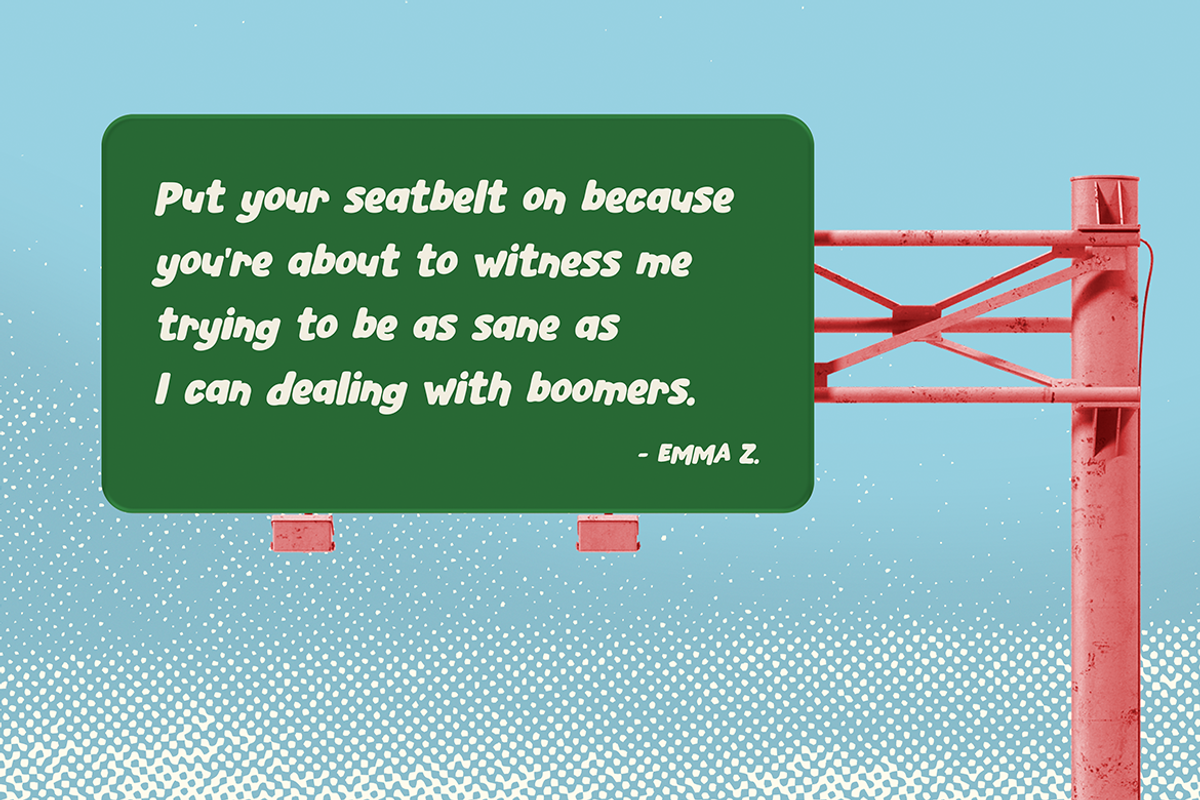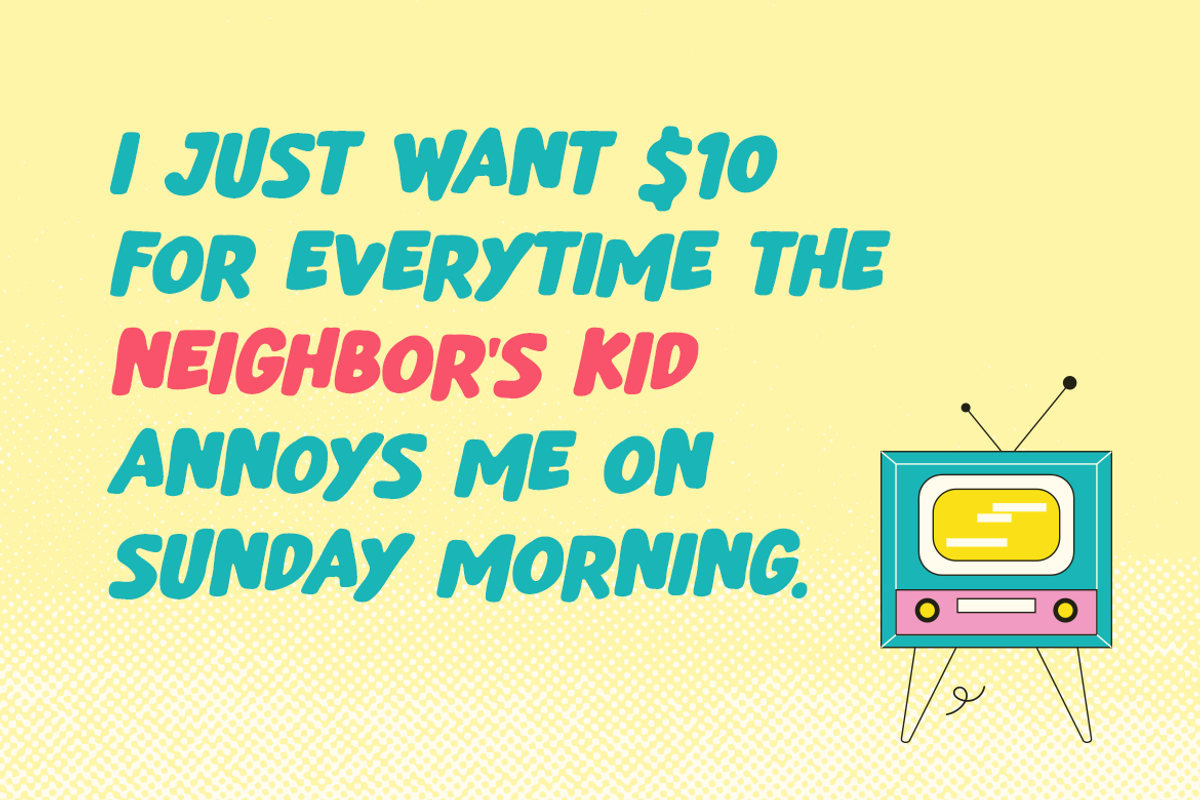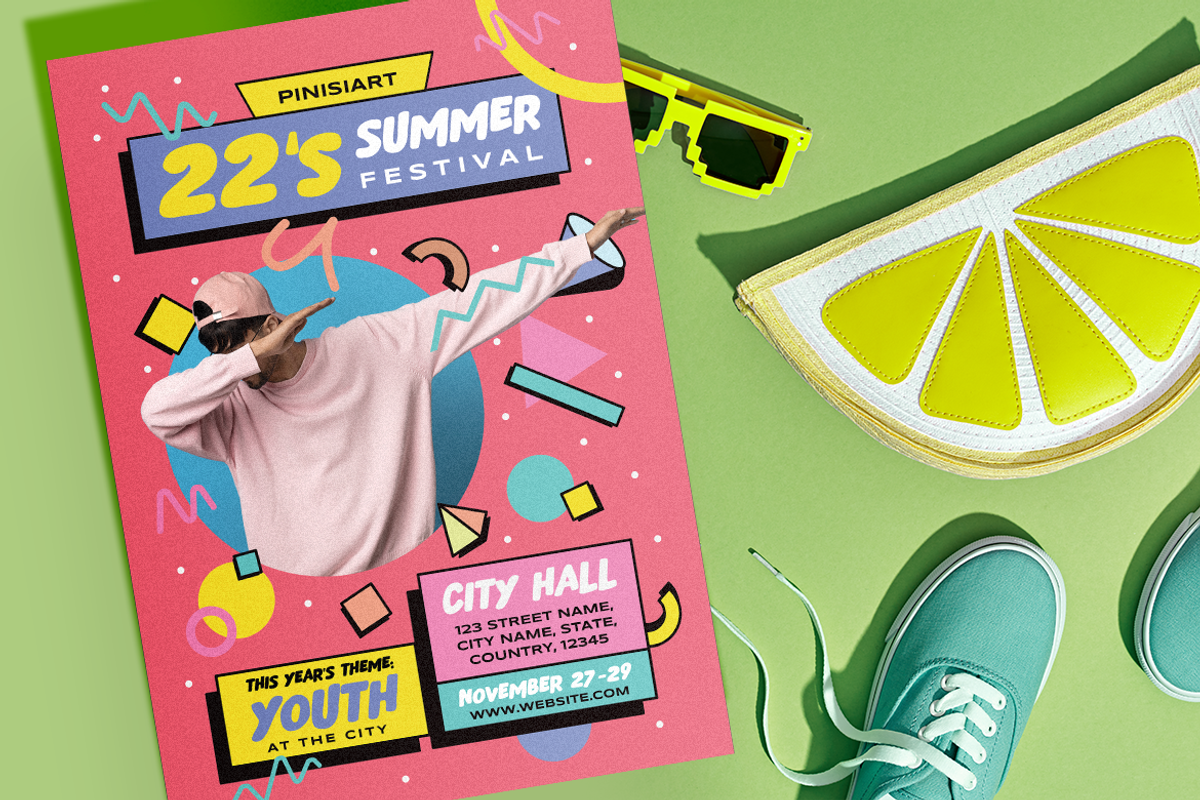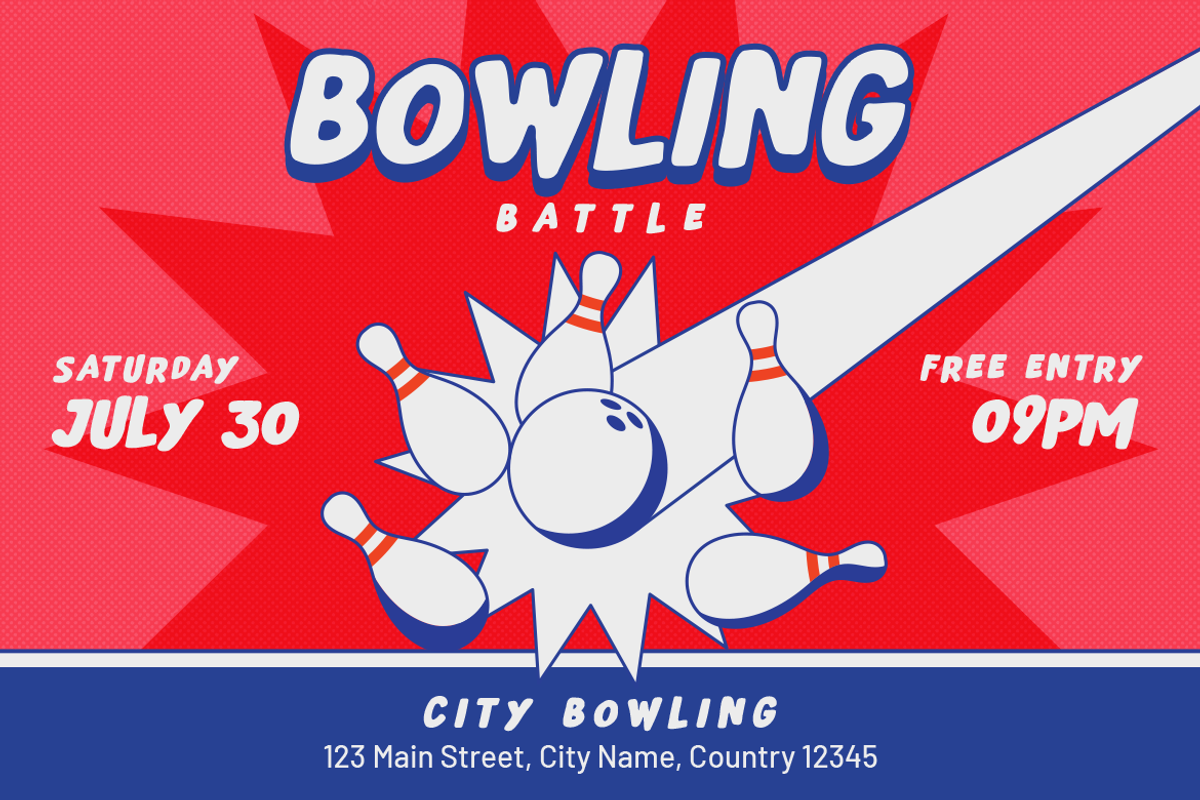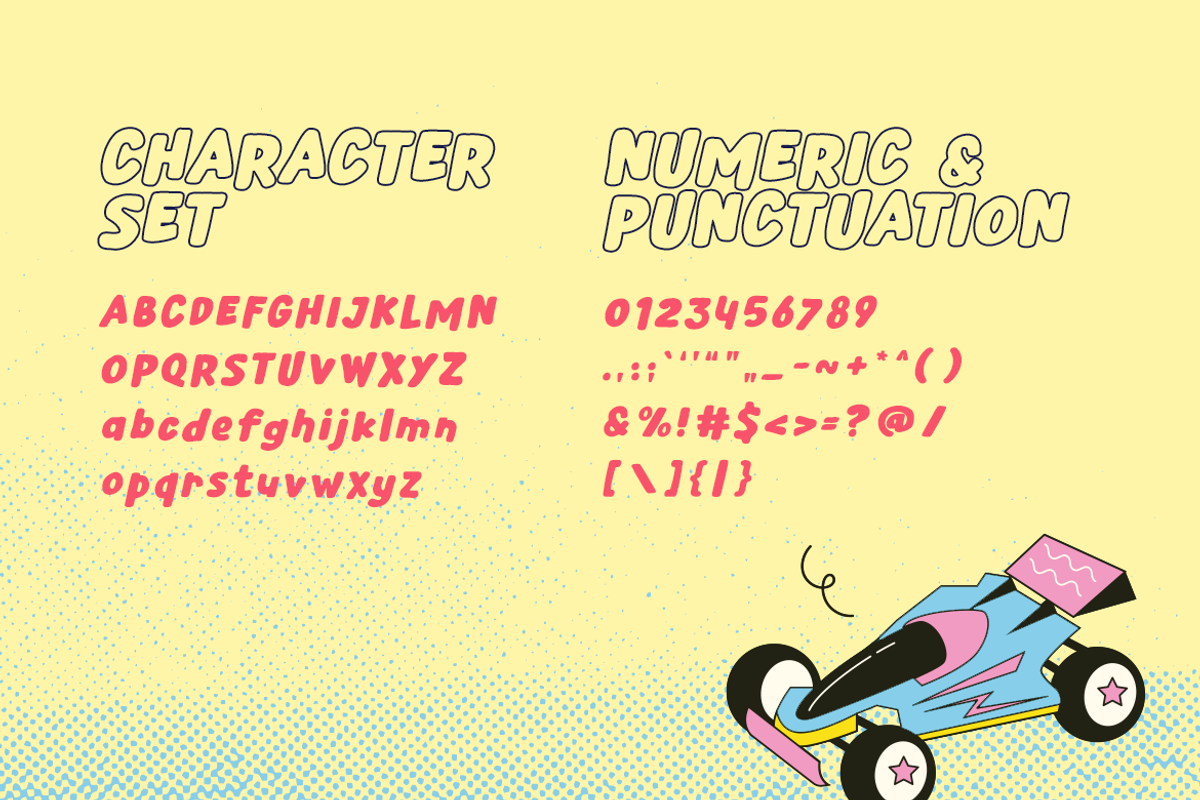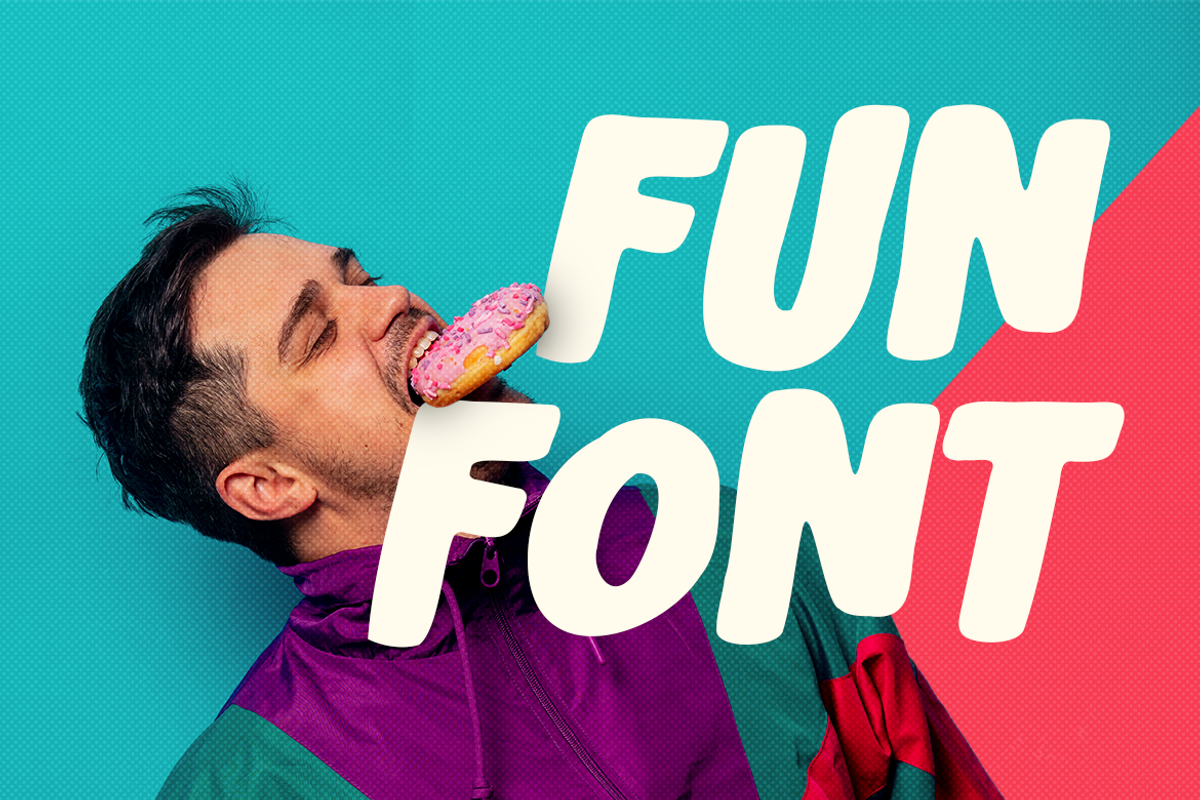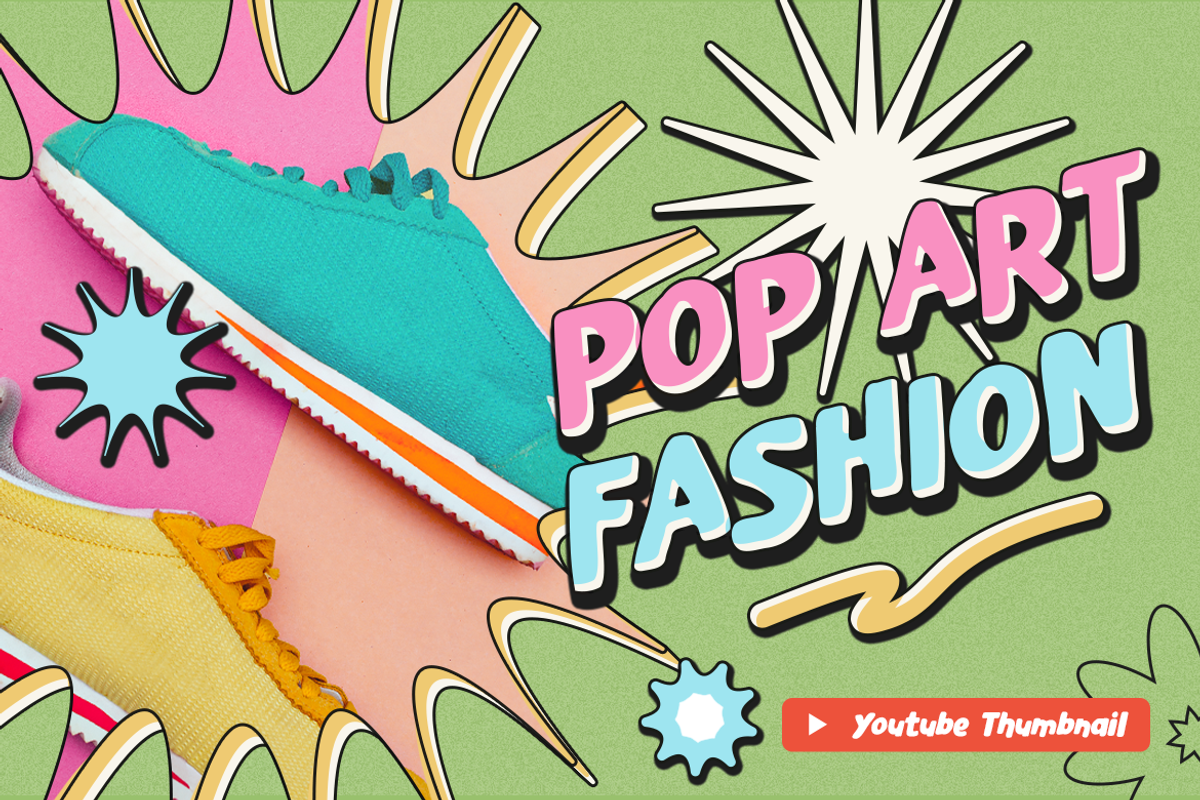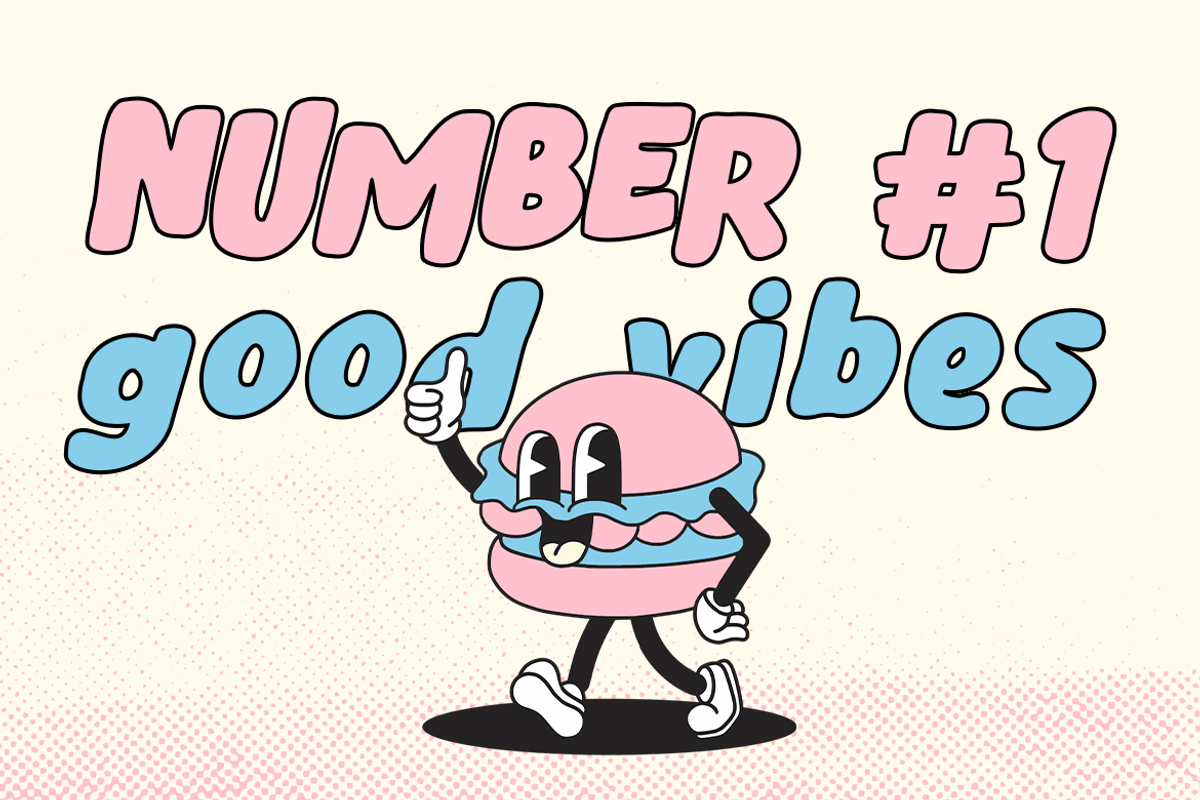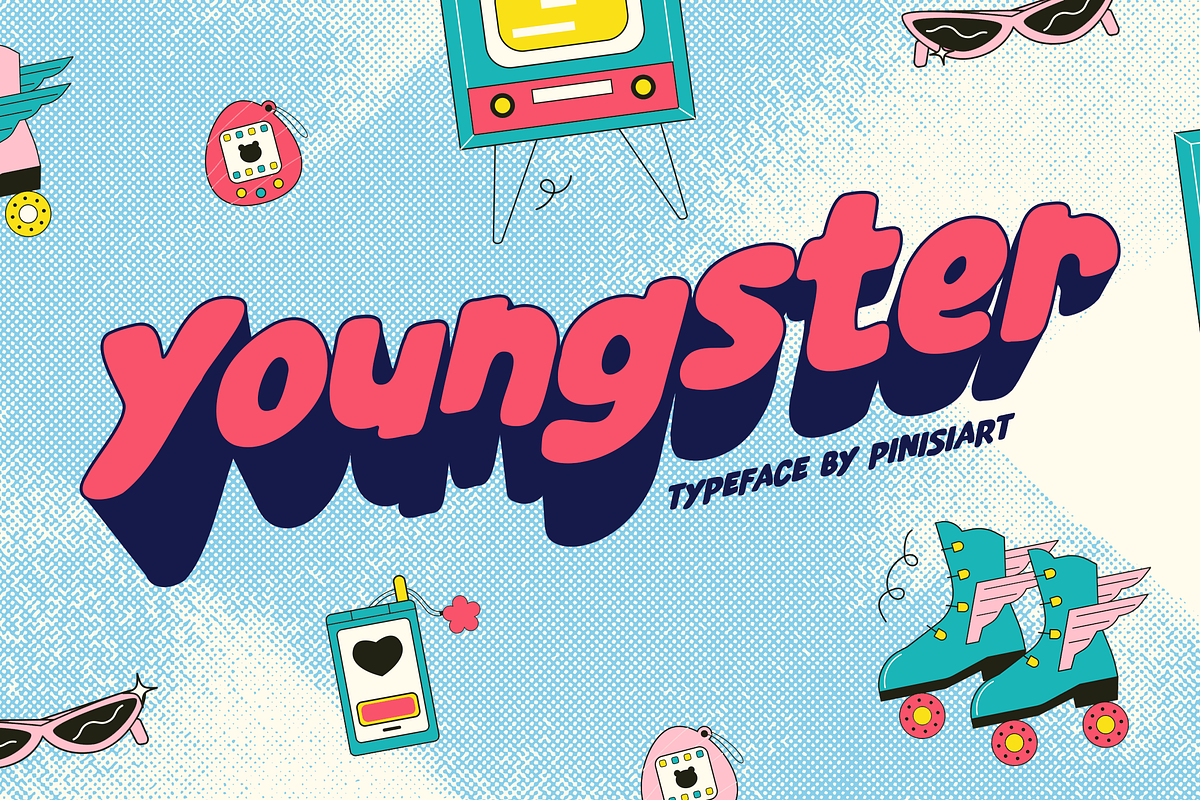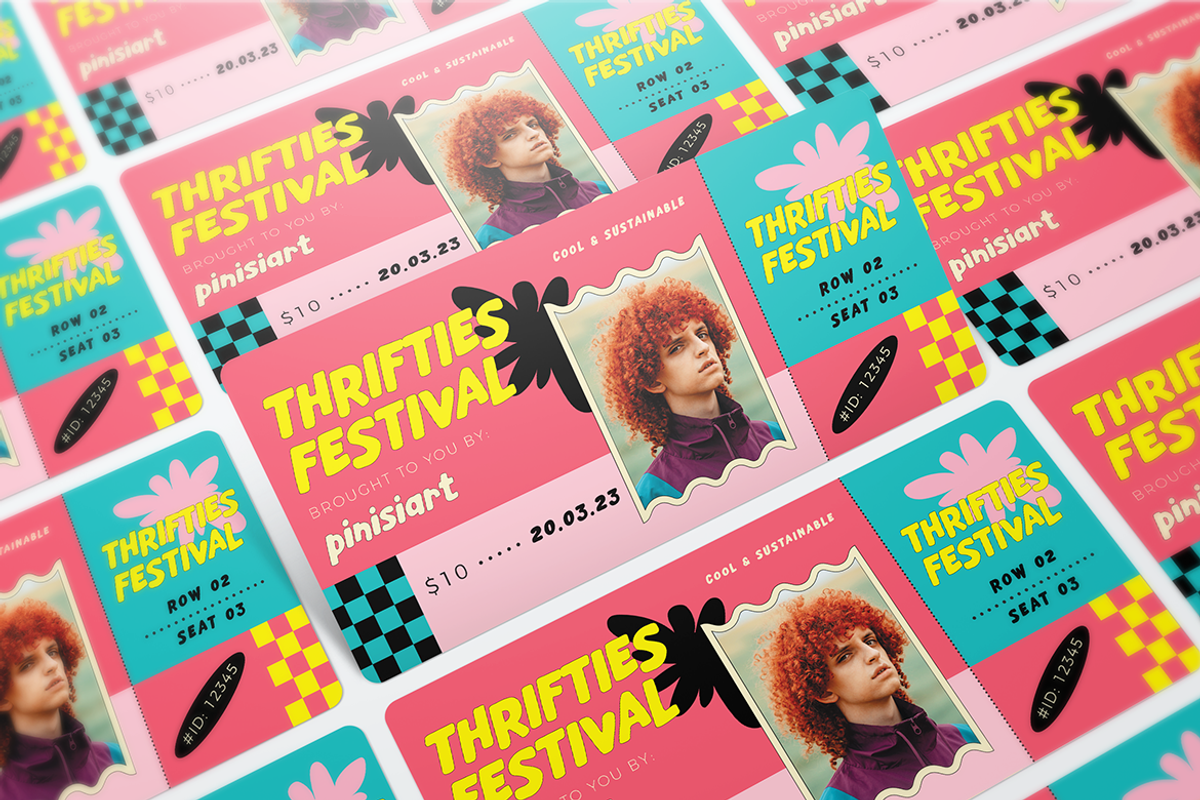
Youngster – Fun Display Font
A teenager is a phase that is full of energy. Fun, party, and joy in every step of the way, that’s why Youngster is a got font to such world.
Suit perfectly for energetic young themes books market, party poster, stationary, sporty supplies font, youtube covers, youtube thumbnails, social media page covers, and so on…